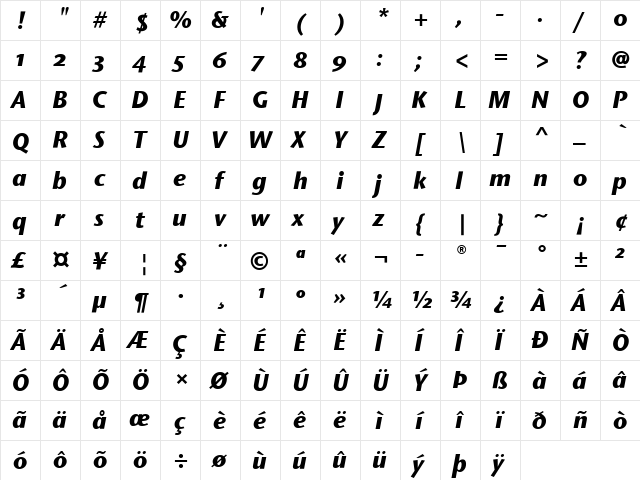
StoneSansOSITC Bold Italic
Design Context for StoneSansOSITC Typeface
StoneSansOSITC offers clean, dependable letterforms without strong stylistic allegiance, making it a practical choice for designers who need flexibility. Its italic angle brings a sense of urgency and motion to the letterforms. Its bold stroke weight gives it real presence on the page.
Pro Tip: Use StoneSansOSITC for emphasis, pull quotes, and subheadings where its slanted energy can add rhythm to the layout.